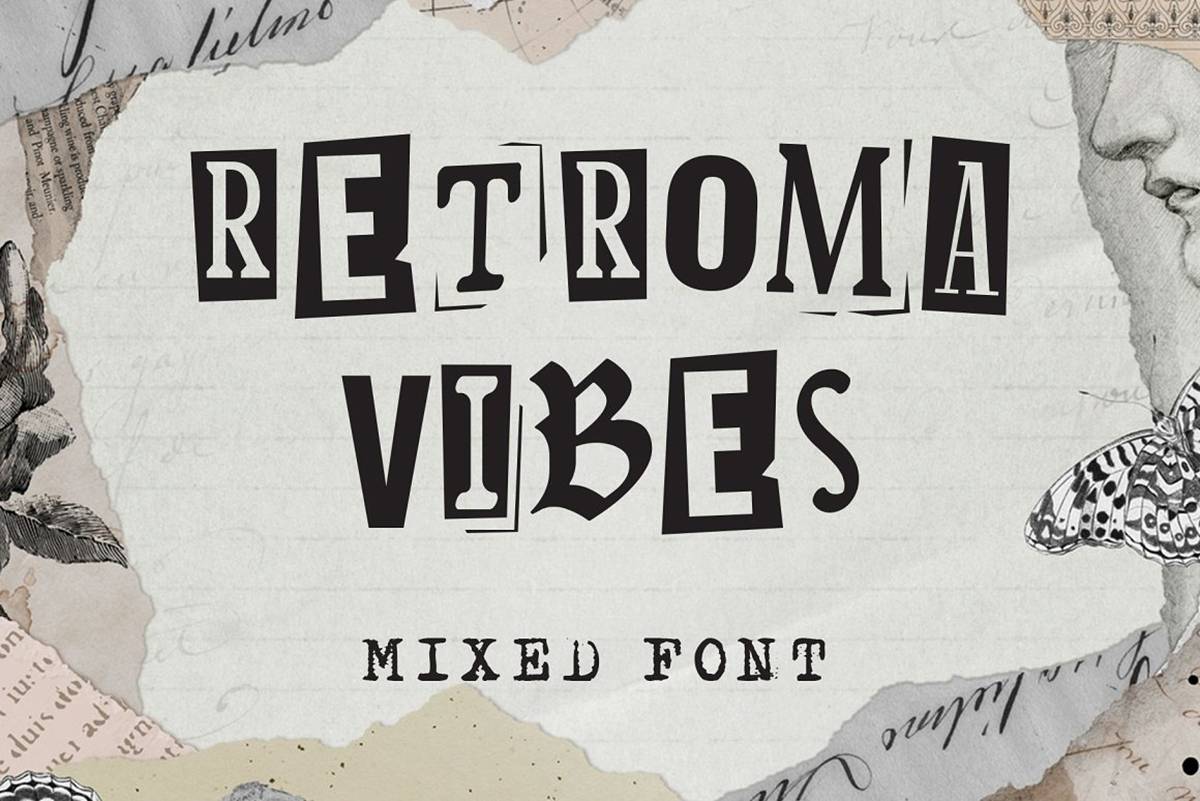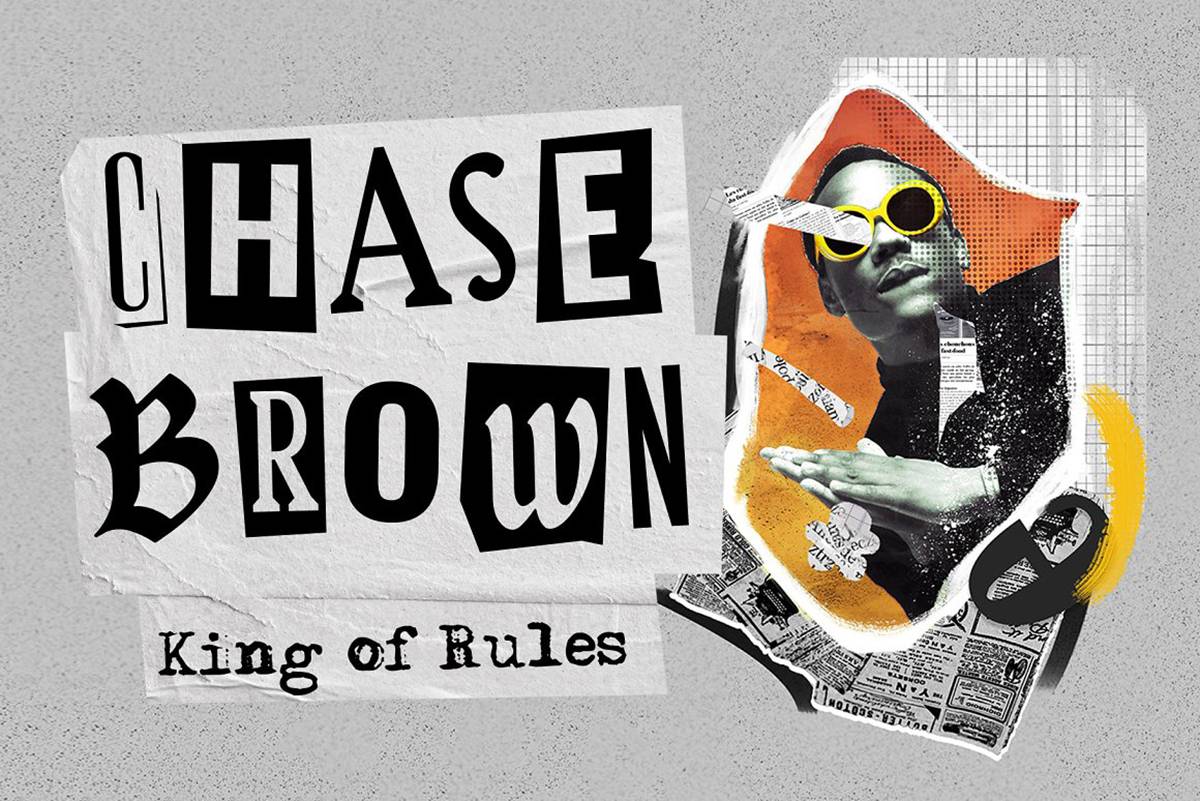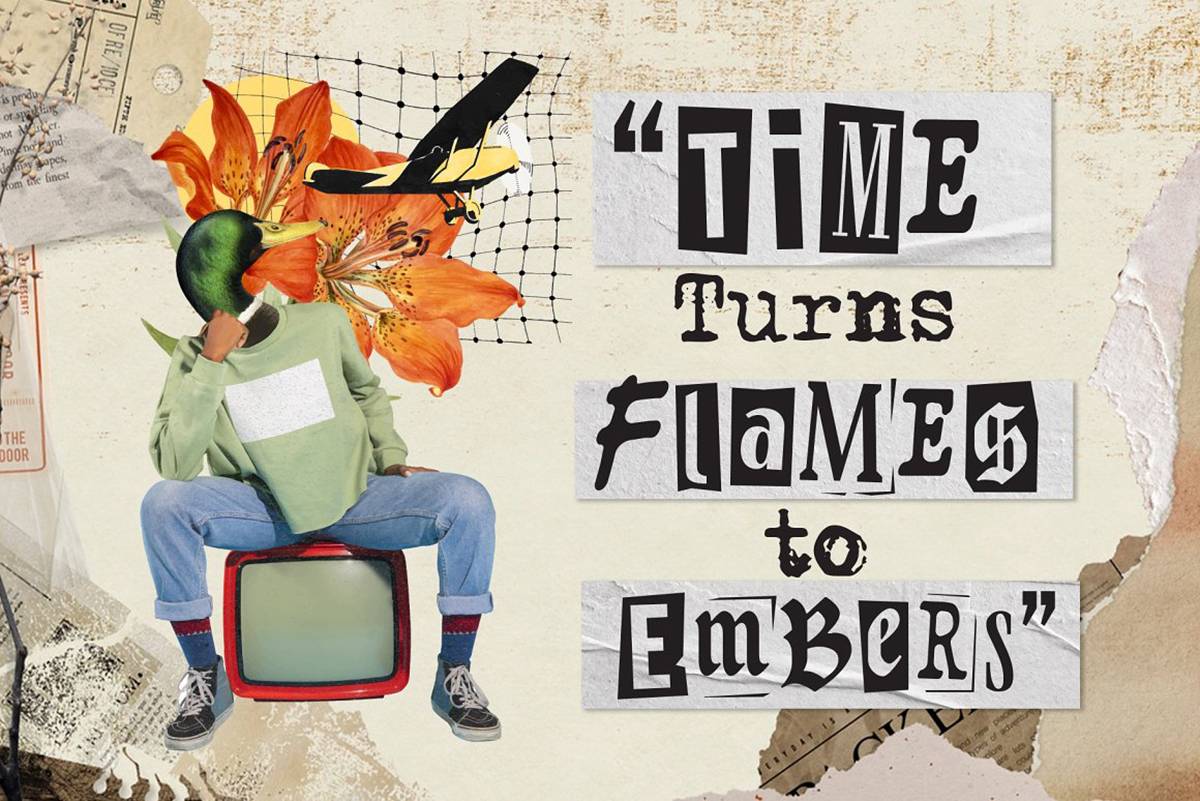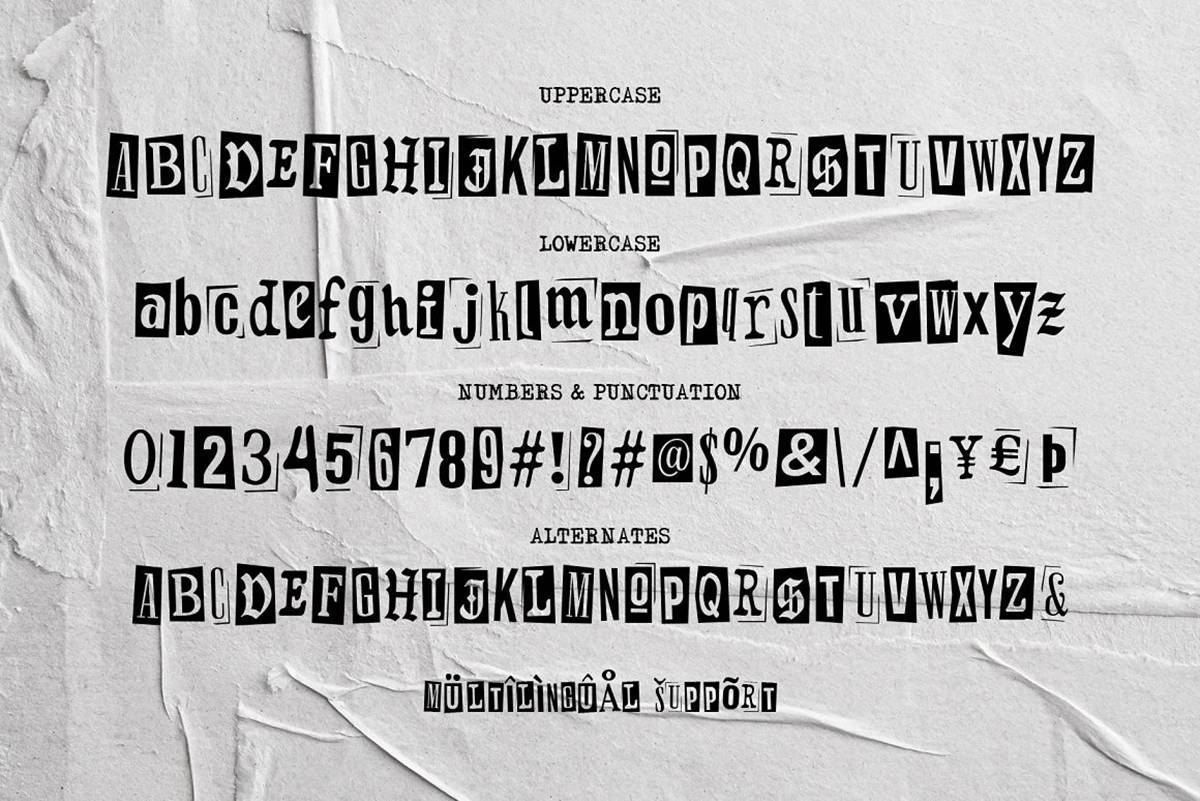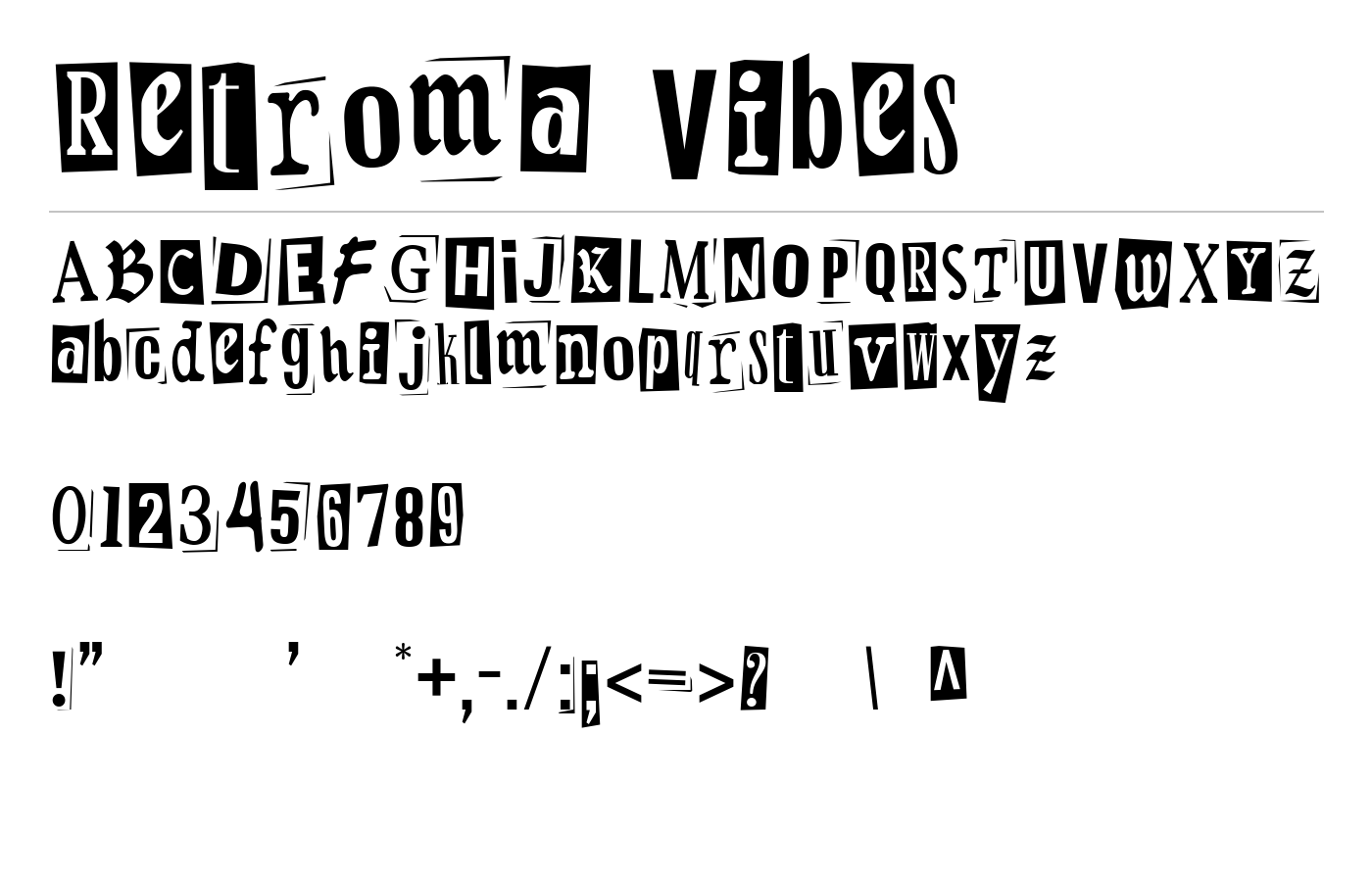
Retroma Vibes is a playful and eclectic serif font that mimics a cut-and-paste ransom note style, featuring uneven letter blocks with varied shapes and slightly irregular spacing. Its bold, quirky characters and high contrast strokes create a vintage yet energetic feel, perfect for eye-catching headlines, creative posters, and fun branding that demands a sense of whimsy and retro charm. This font excels in designs that want to stand out with a unique, handcrafted personality.
Retroma Vibes Font
About Retroma Vibes Font